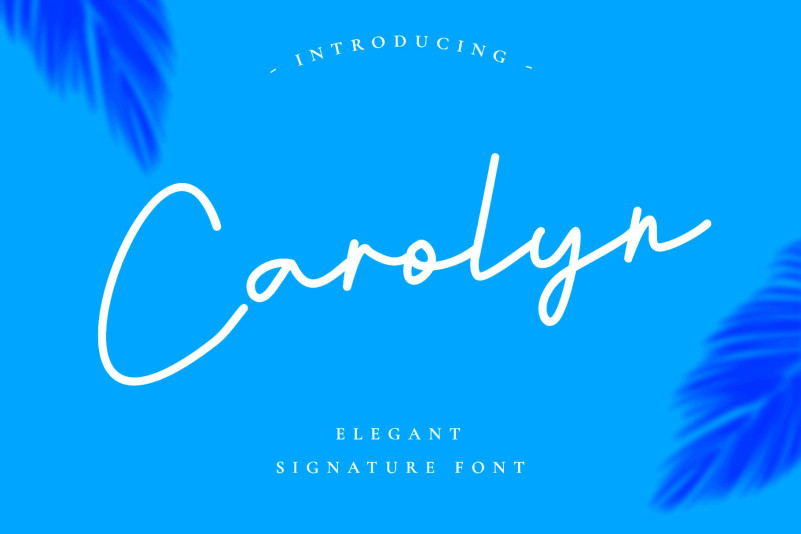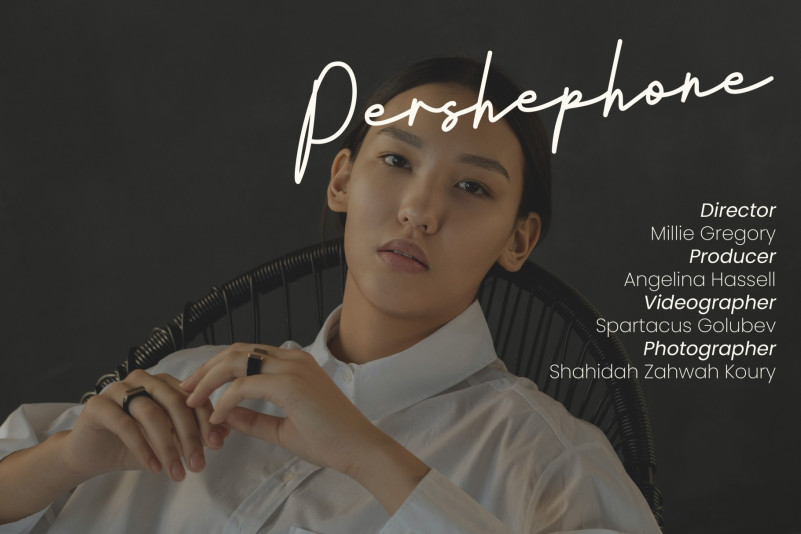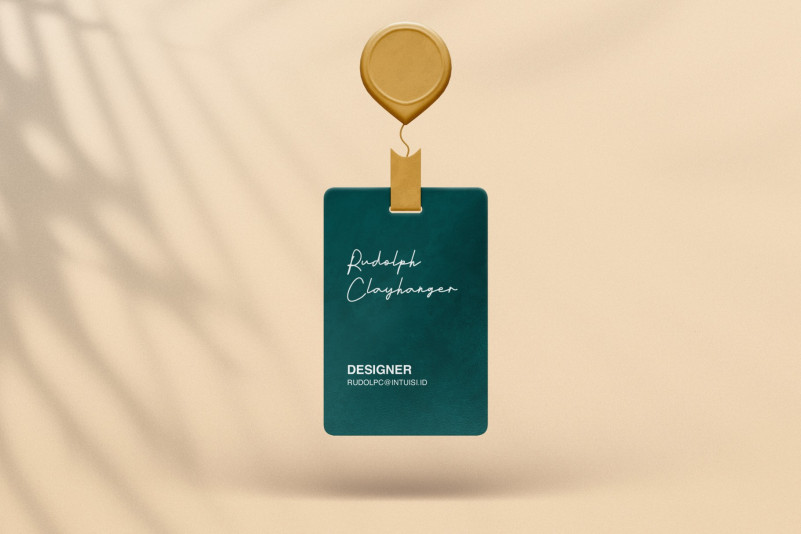
Carolyn Font
Introducing Carolyn Casual Signature script typeface. With a modern and Feminine look, Carolyn brings a luxurious and clean style to websites, modern logos, branding identities, social media quotes, wedding stationery and anything else you dream of!